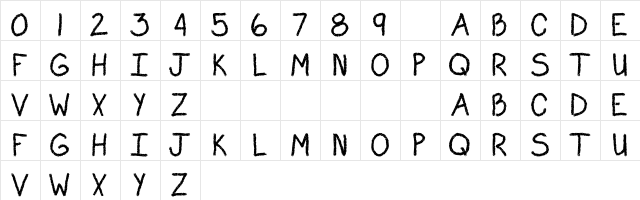
101! Writing's on the Wall Regular
Design Context for 101! Writing's on the Wall Typeface
101! Writing's on the Wall is a composed and adaptable typeface that performs quietly and consistently across a wide range of design contexts.